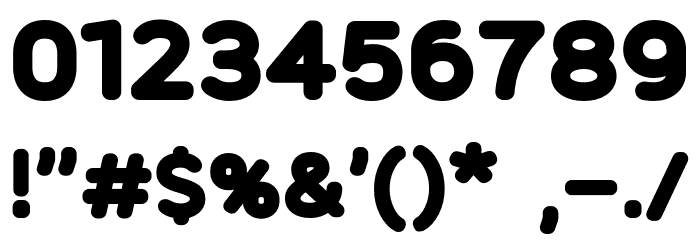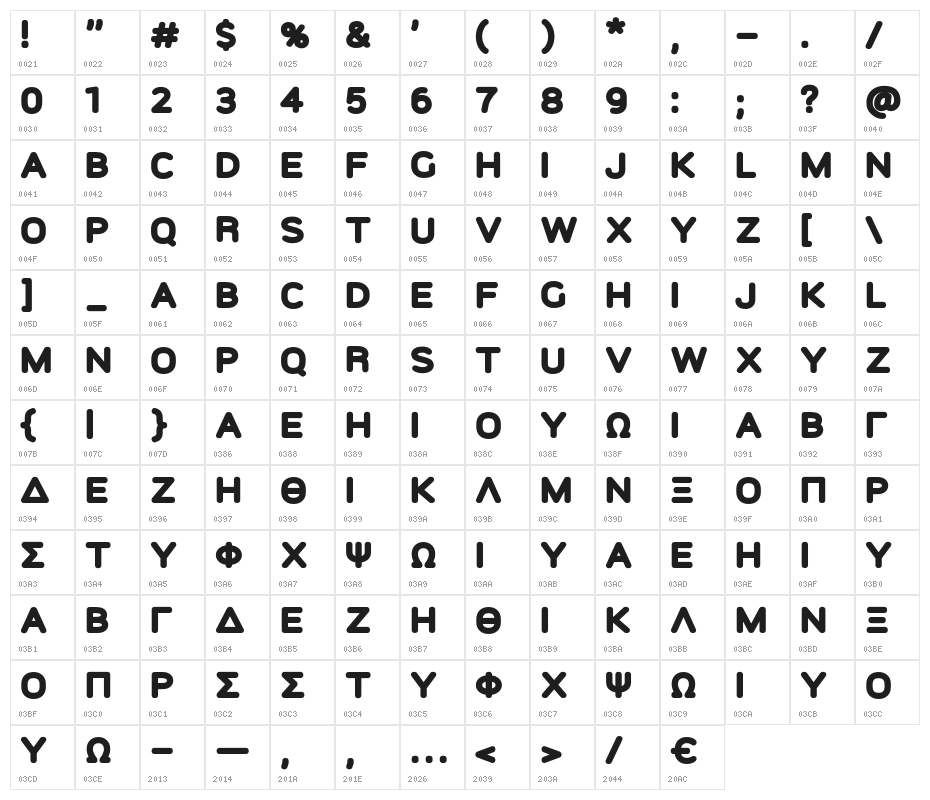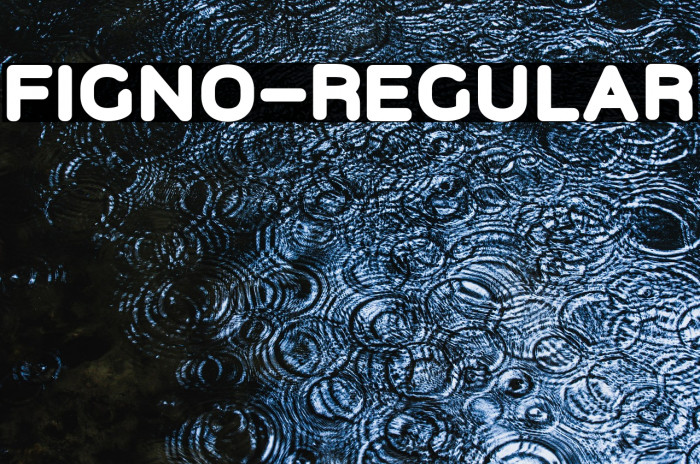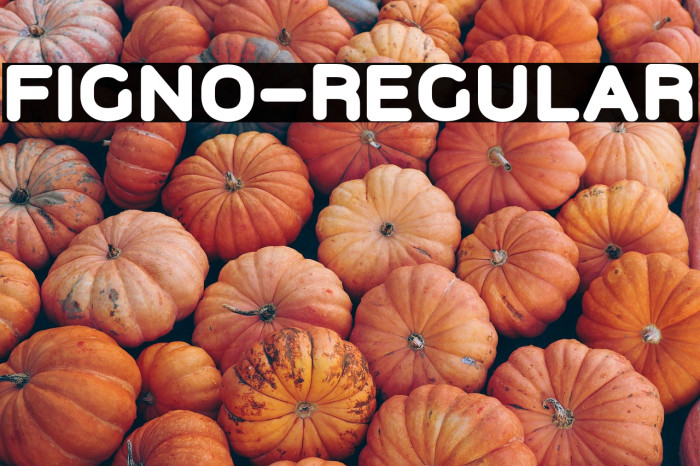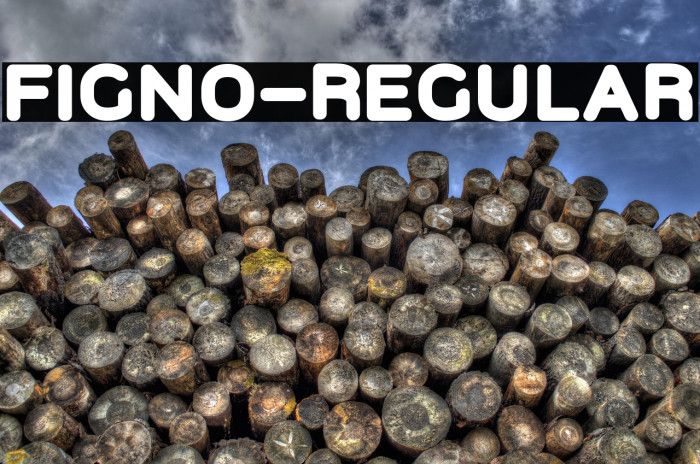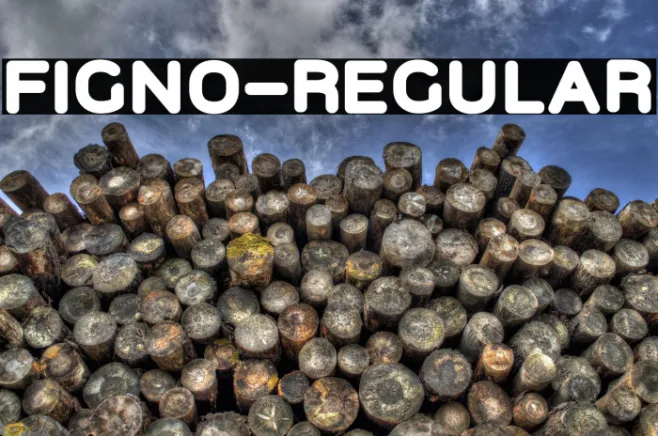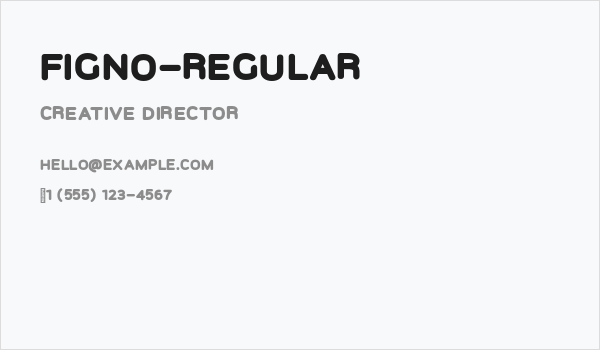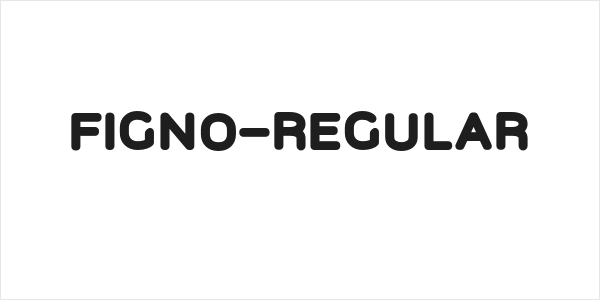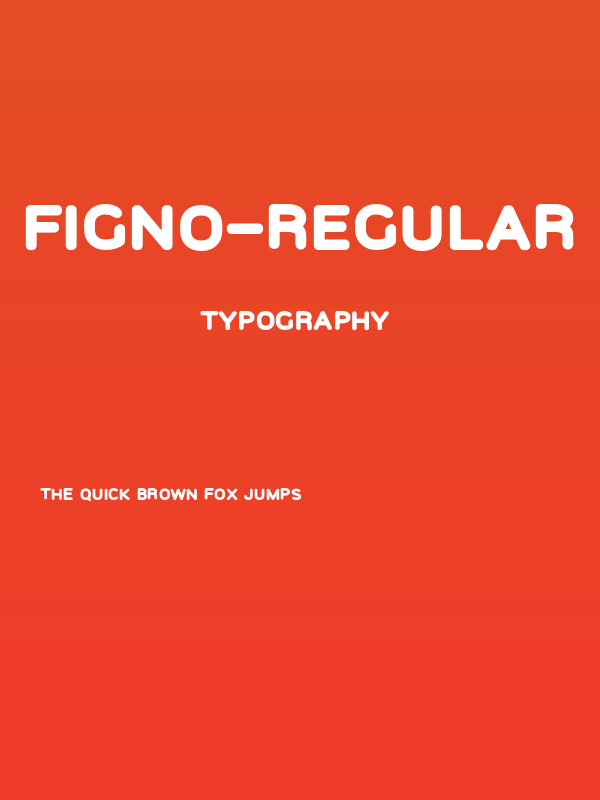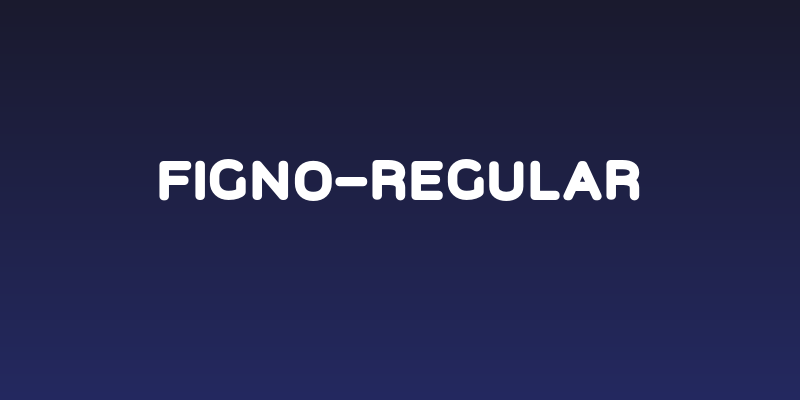
This font features bold, rounded characters with a modern and friendly appearance. The letters are evenly spaced, providing a clean and approachable look. The uniform stroke width across all characters gives it a cohesive and balanced feel. The rounded edges soften the overall appearance, making it suitable for a variety of applications where a welcoming and contemporary style is desired. The numerals and special characters maintain the same rounded and bold characteristics, ensuring consistency throughout the typeface.
Use CaseHeadlines, Logos, Digital Interfaces
Proposed ProjectsIdeal for branding, advertising, children's books, and digital interfaces where a friendly and modern look is desired.